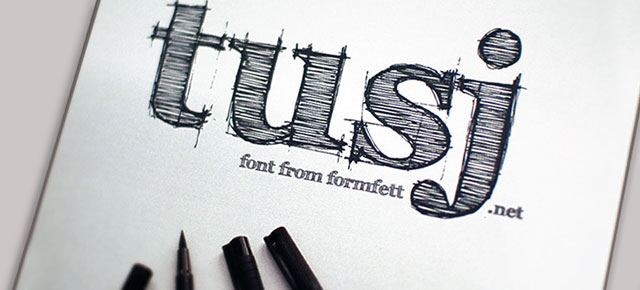
20 Beautiful Handwritten Fonts That Shouldn't be Free
There's probably nothing more cold than an official text written in Arial - while you read it, you may have a strange feeling that it must have been written by a robot. In order to make people feel better and warm inside, sometimes you need a personal touch - and if your handwriting sucks, there's always some nice handwritten fonts out there.